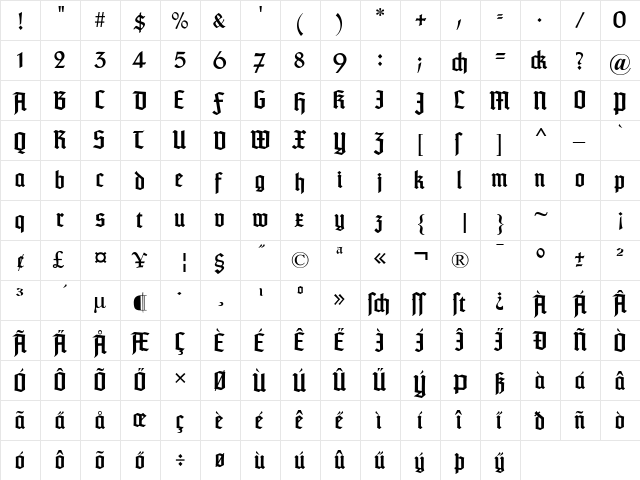
TypographerTextur Regular
| Designer | Dieter Steffmann |
Design Context for TypographerTextur Typeface
TypographerTextur takes a measured approach to typography — its balanced proportions and neutral character make it a reliable workhorse for both digital and print work.